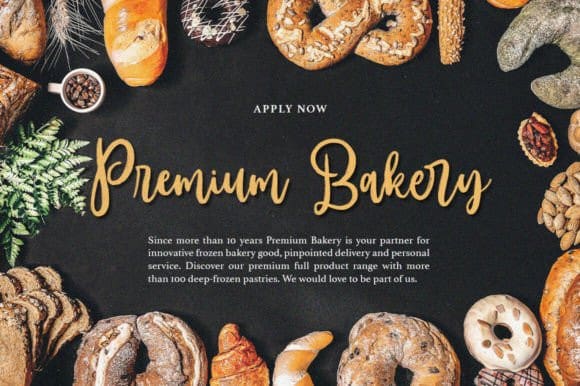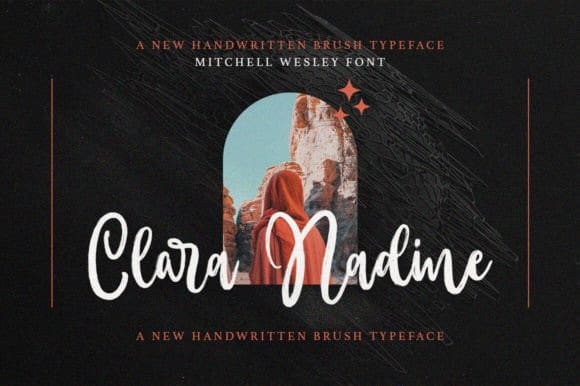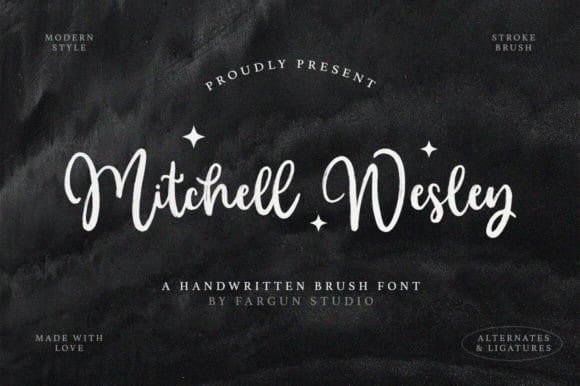
Mitchell Wesley Font
Mitchell Wesley Font is a beautiful Handwritten Font, A beautifully handcrafted font combined with brush style that’ll make your guests sing and elevate your projects! Every stroke, and curve was created to entice happiness and elegance. It suitable for wedding invitation, greeting cards, T-Shirt, Logo or any design that you create. Comes with a complete set of standard characters, Alternates, Ligatures, Punctuation & International glyphs.